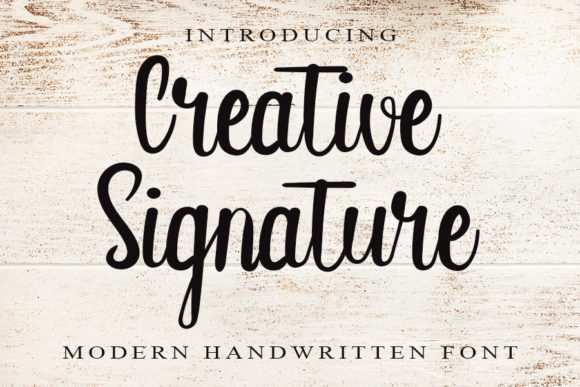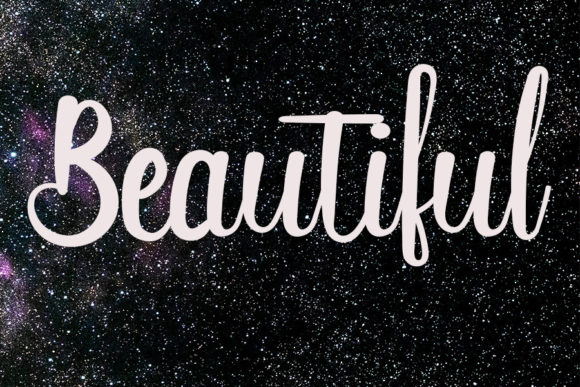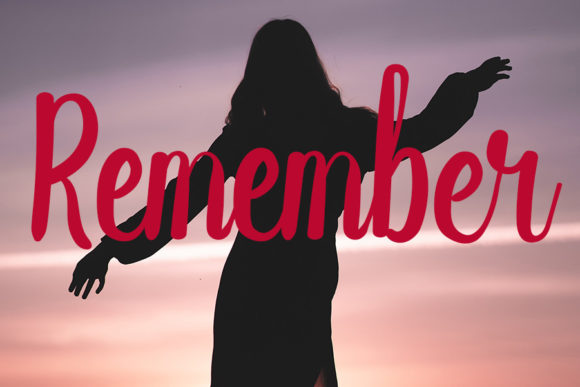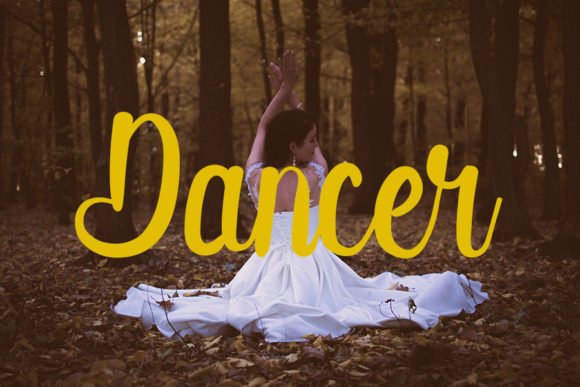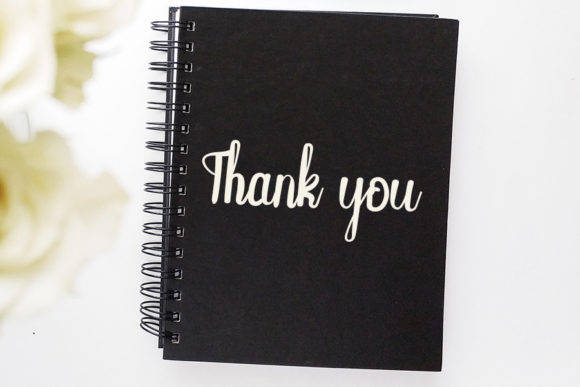
Creative Signature Font
About Creative Signature Font
Creative Signature is a casual handwritten font, carefully designed to become a true favorite. It maintains its classy calligraphic influences while feeling contemporary and fresh. Fall in love with it and bring your projects to the highest levels!